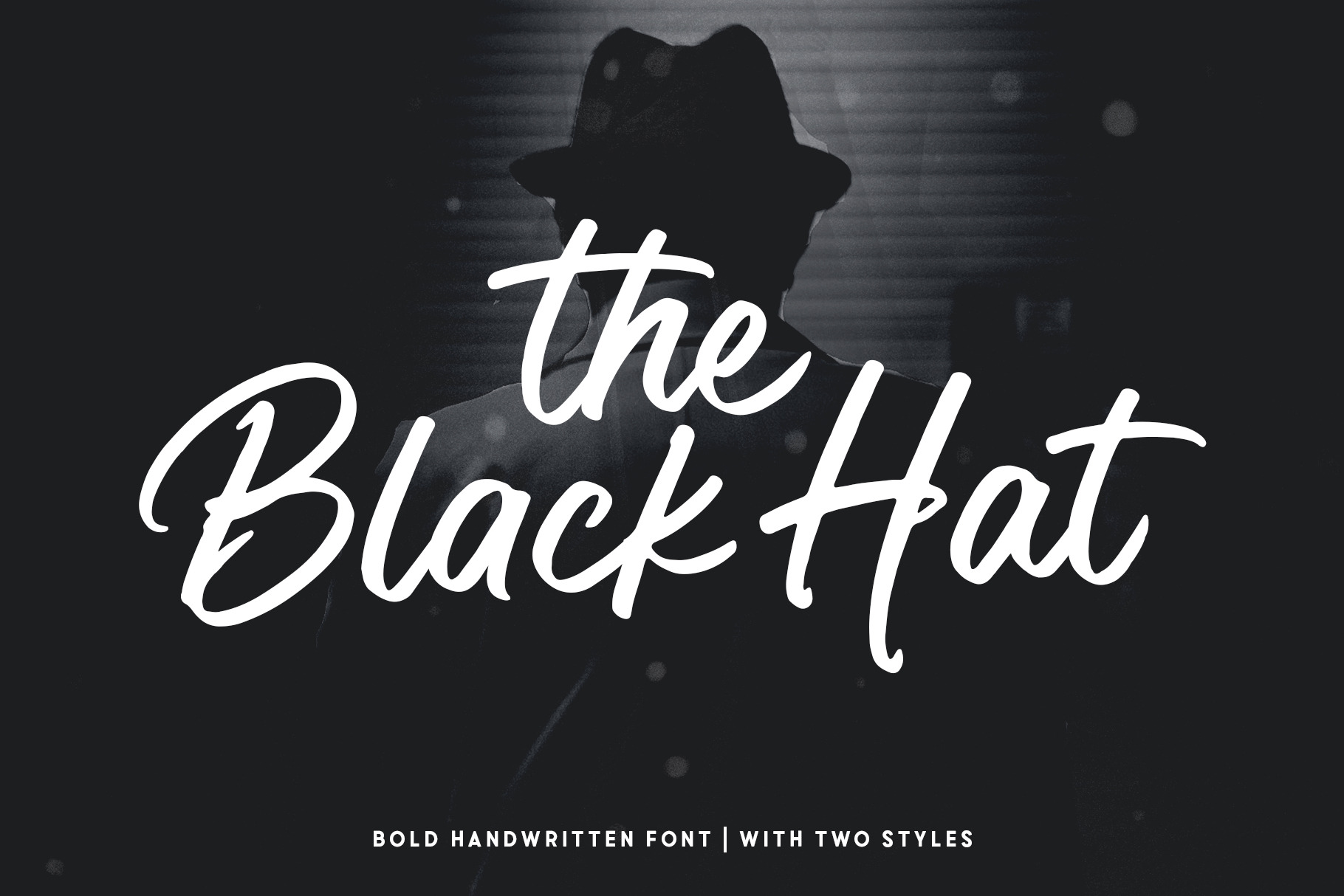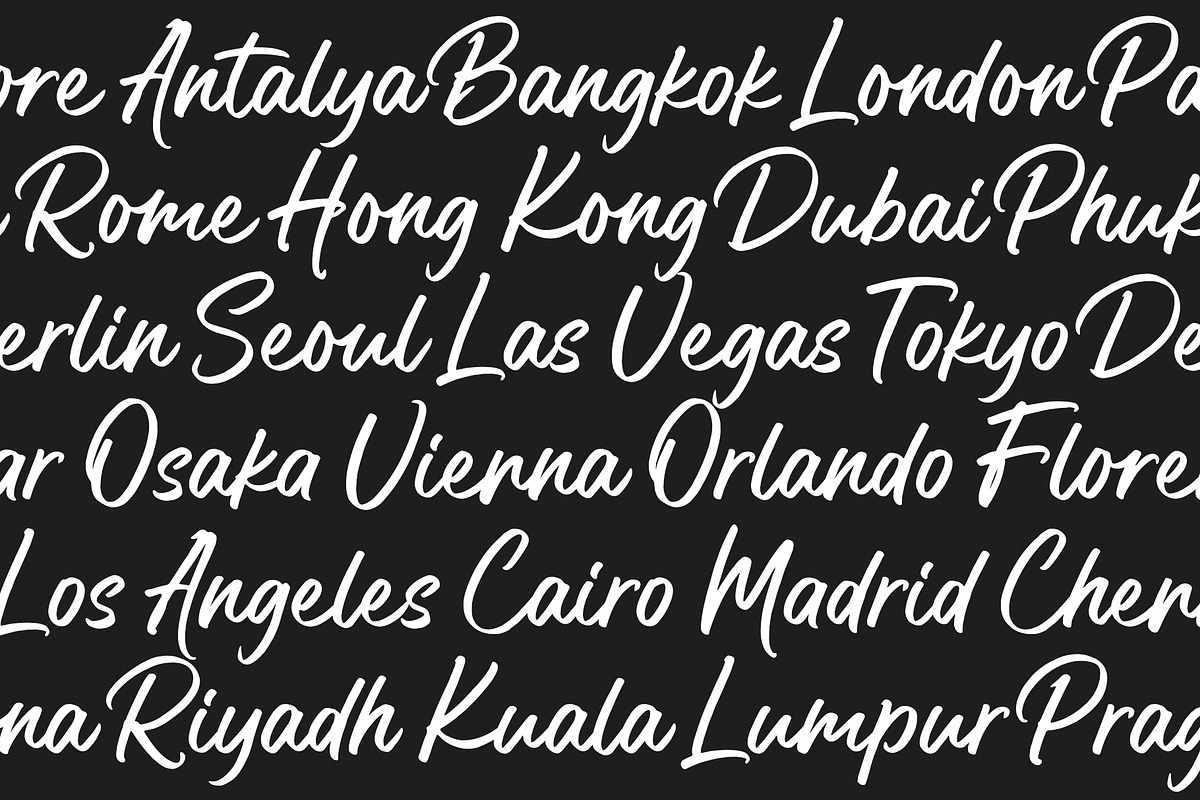
Black Hat Font
Black Hat is a bold handwritten font. Inspired by a round black hat. Written with a brush pen with fast movements. Comes with two fonts, makes it easy to choose a font that suits the project being worked on. Suitable for branding, advertising, headlines, packaging design, and more.
- Number & punctuation symbols
- Stylistic Sets
- International characters (Multilingual)